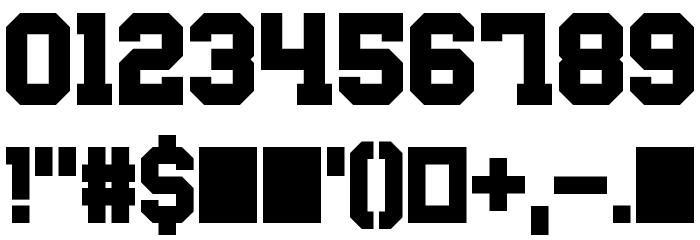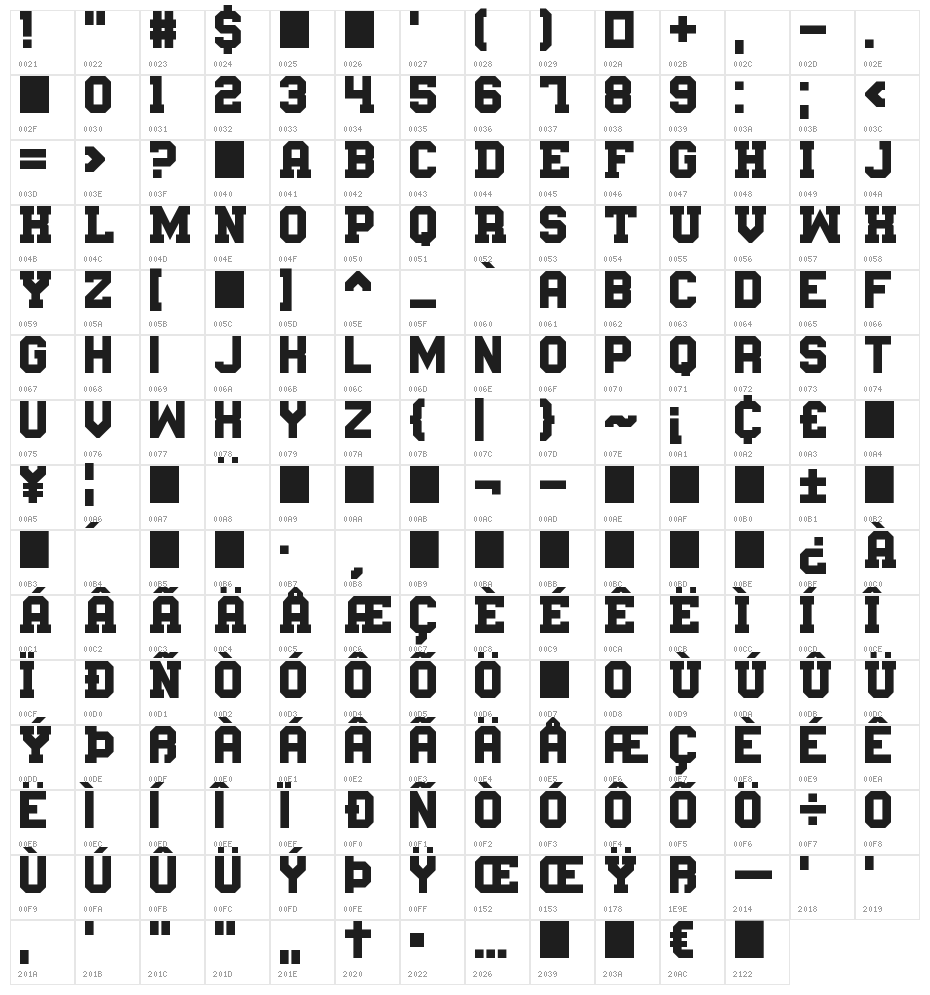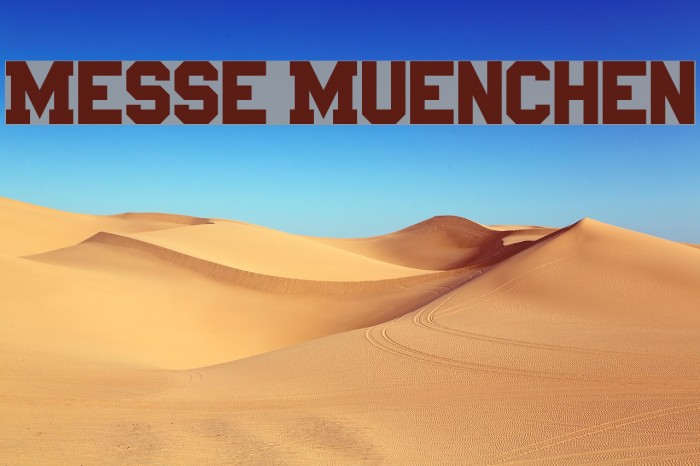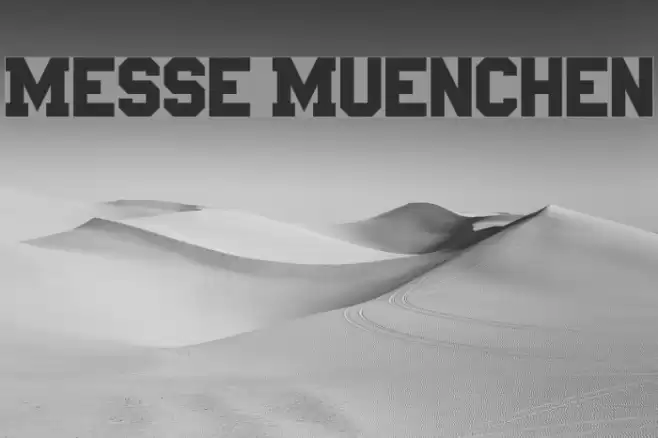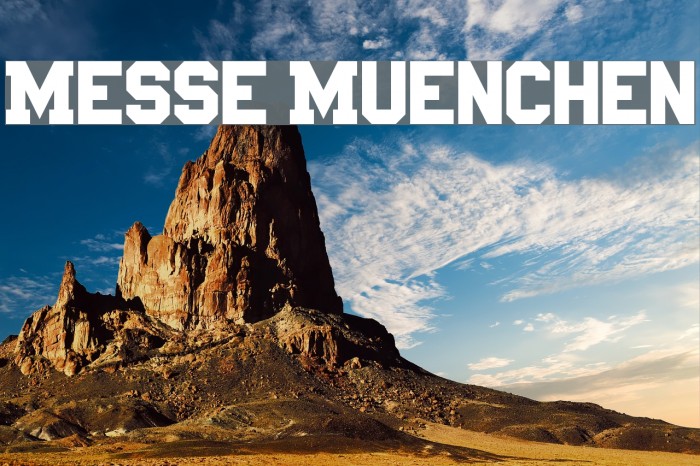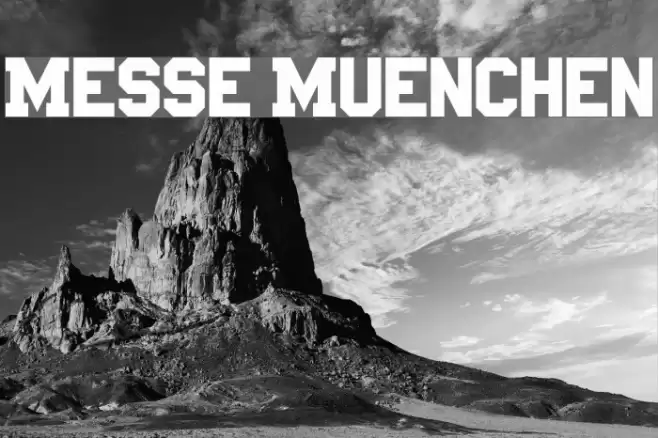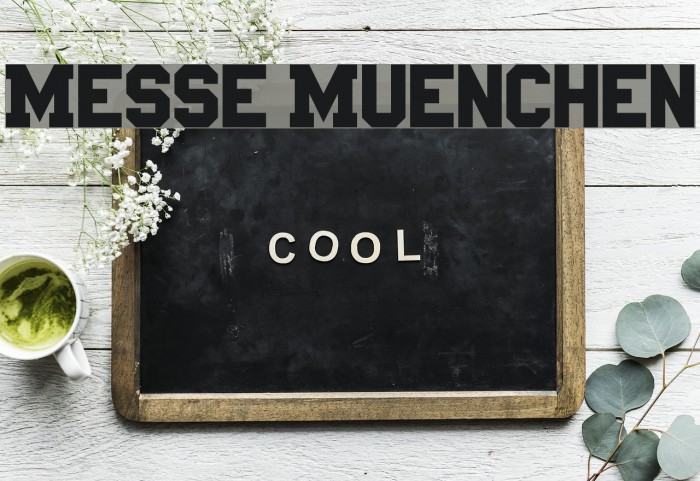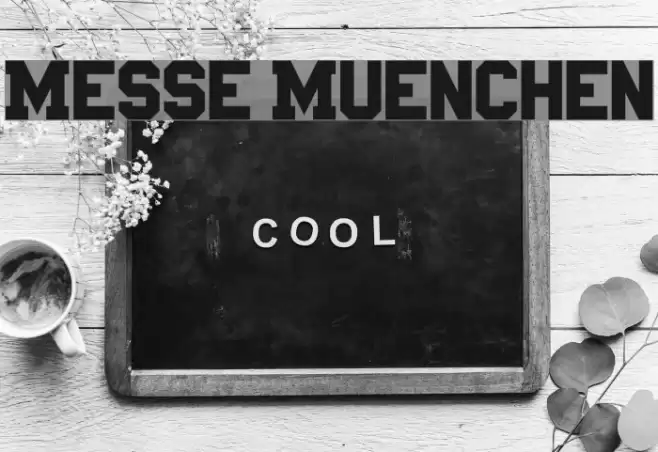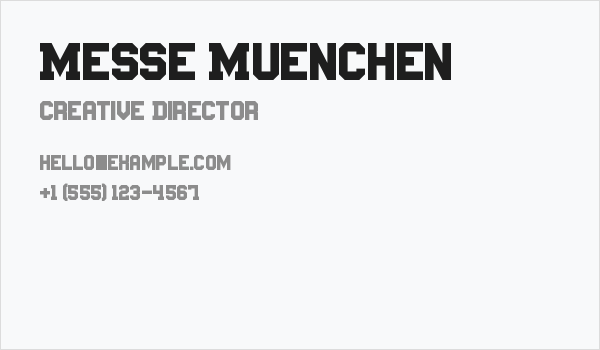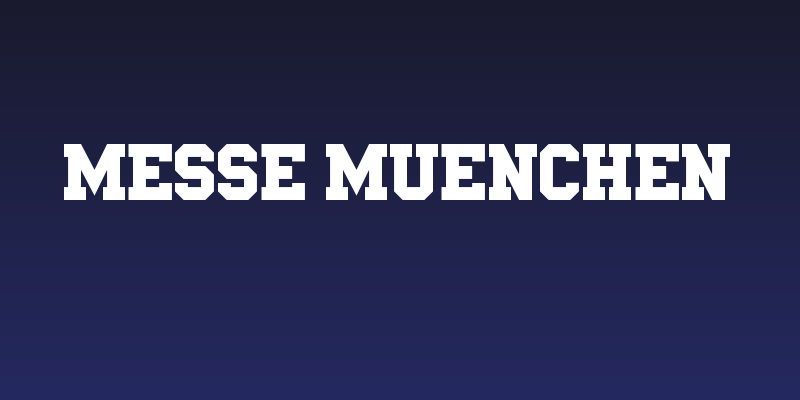
Messe Muenchen Font
Messe Muenchen Description
This font features a bold, geometric design with strong, angular lines and a robust presence. The characters are constructed with a blocky, modular style that emphasizes uniformity and strength. Each letter and number is crafted with a consistent width, giving the font a monospaced appearance. The uppercase letters are particularly striking, with sharp edges and a commanding presence. The font's design is reminiscent of industrial or military aesthetics, making it suitable for projects that require a bold and assertive look. The numbers and special characters maintain the same boldness, ensuring a cohesive appearance across all text elements.